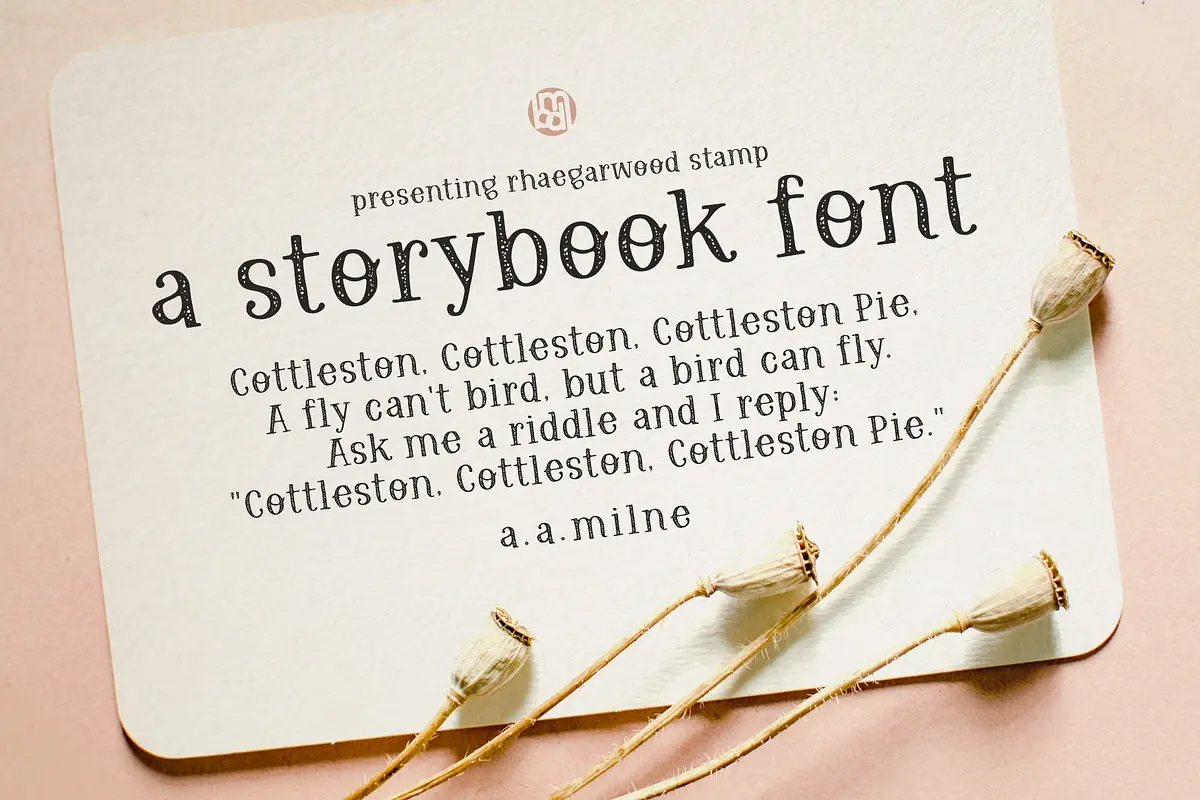
Please note, you must purchase this font for commercial use. However, you can easily download Rhaegarwood Font Family Free Download for personal use and testing purposes. Rhaegarwood Font Family is a versatile and stylish font collection that includes a range of weights and styles, perfect for any creative project. Whether you're designing for branding, editorial layouts, posters, or logos, this font family offers elegant letterforms with a modern, refined appeal. With its strong presence and balanced design, Rhaegarwood Font Family Free Download is ideal for both professional and artistic projects. Download Rhaegarwood Font Family Free Download today and explore its full potential before opting for a commercial license.